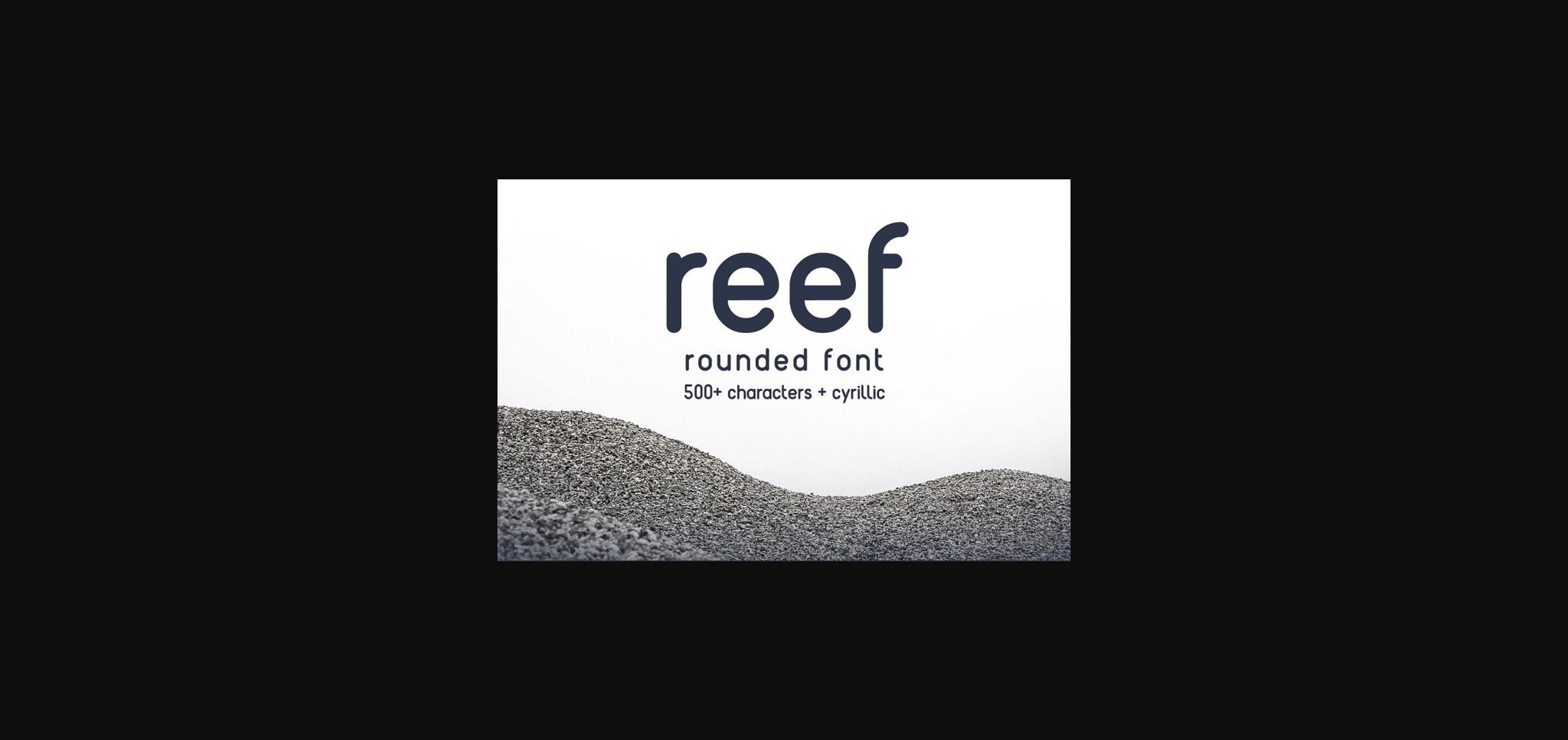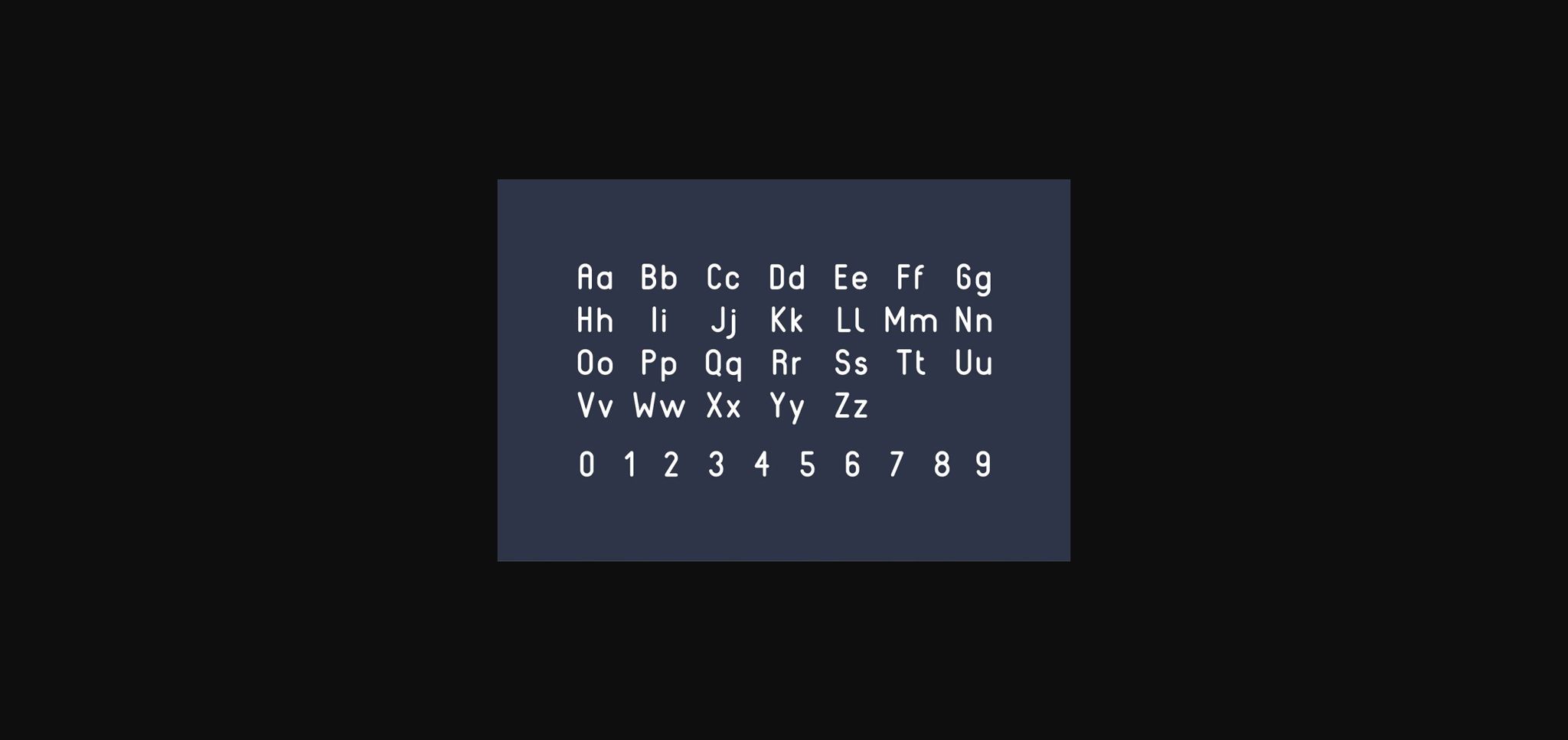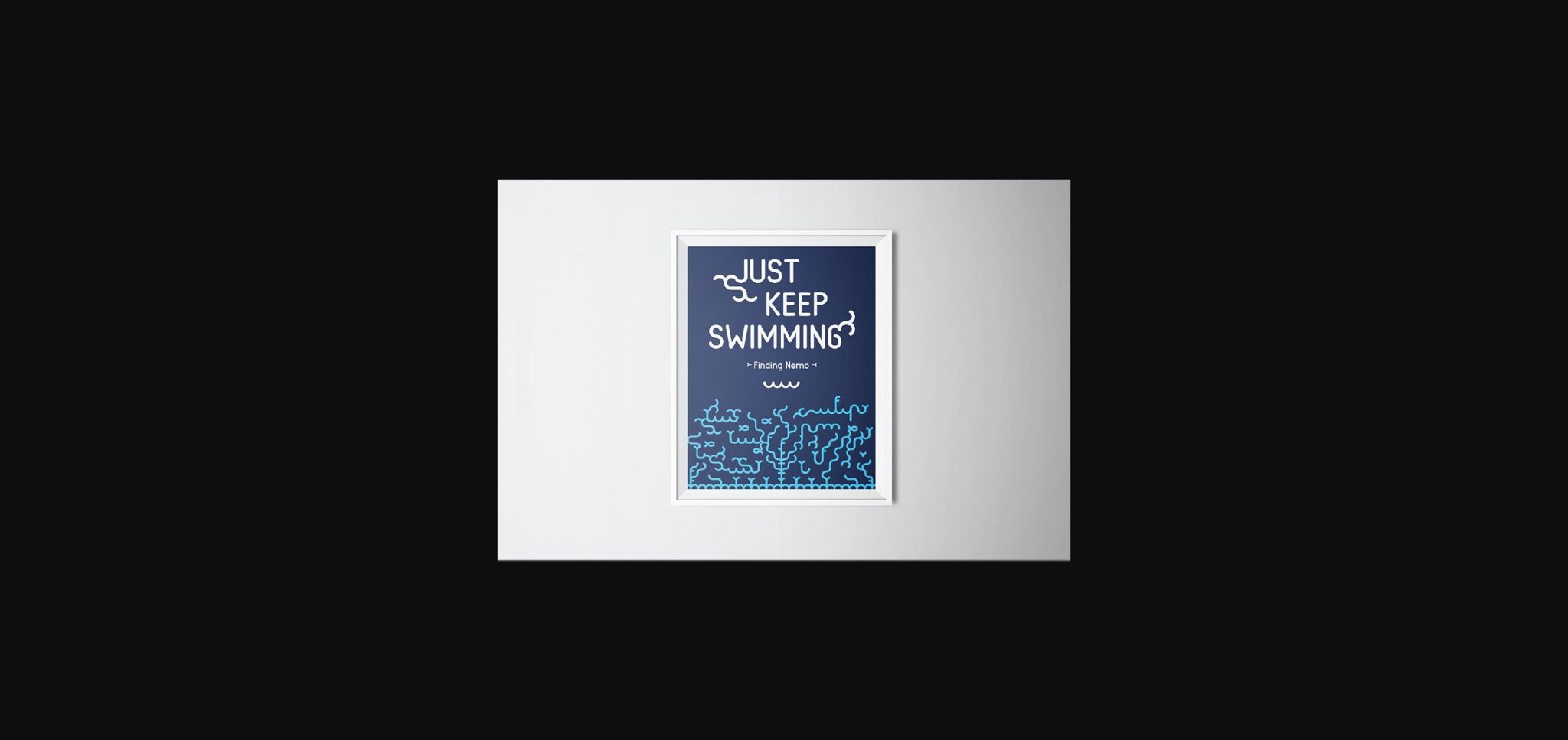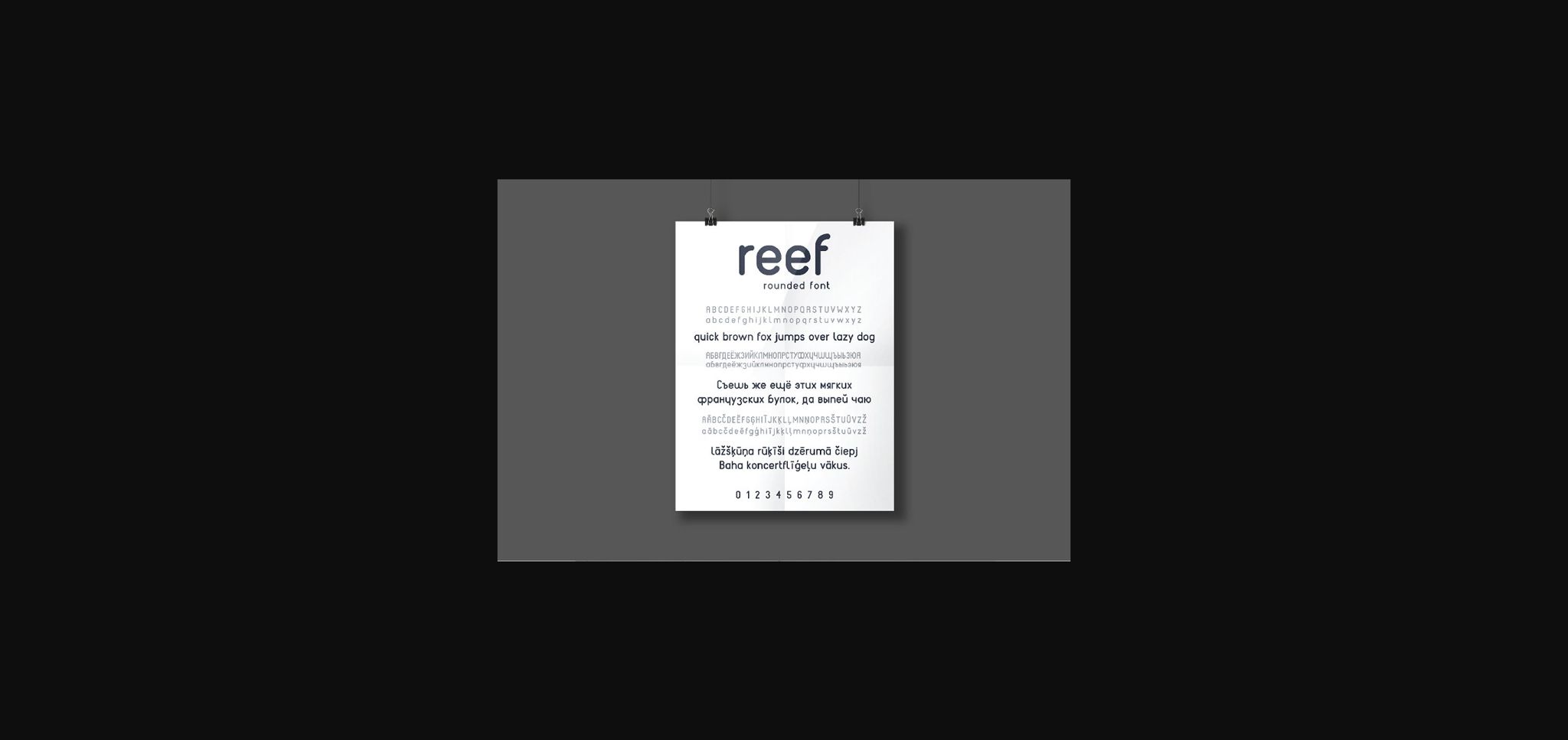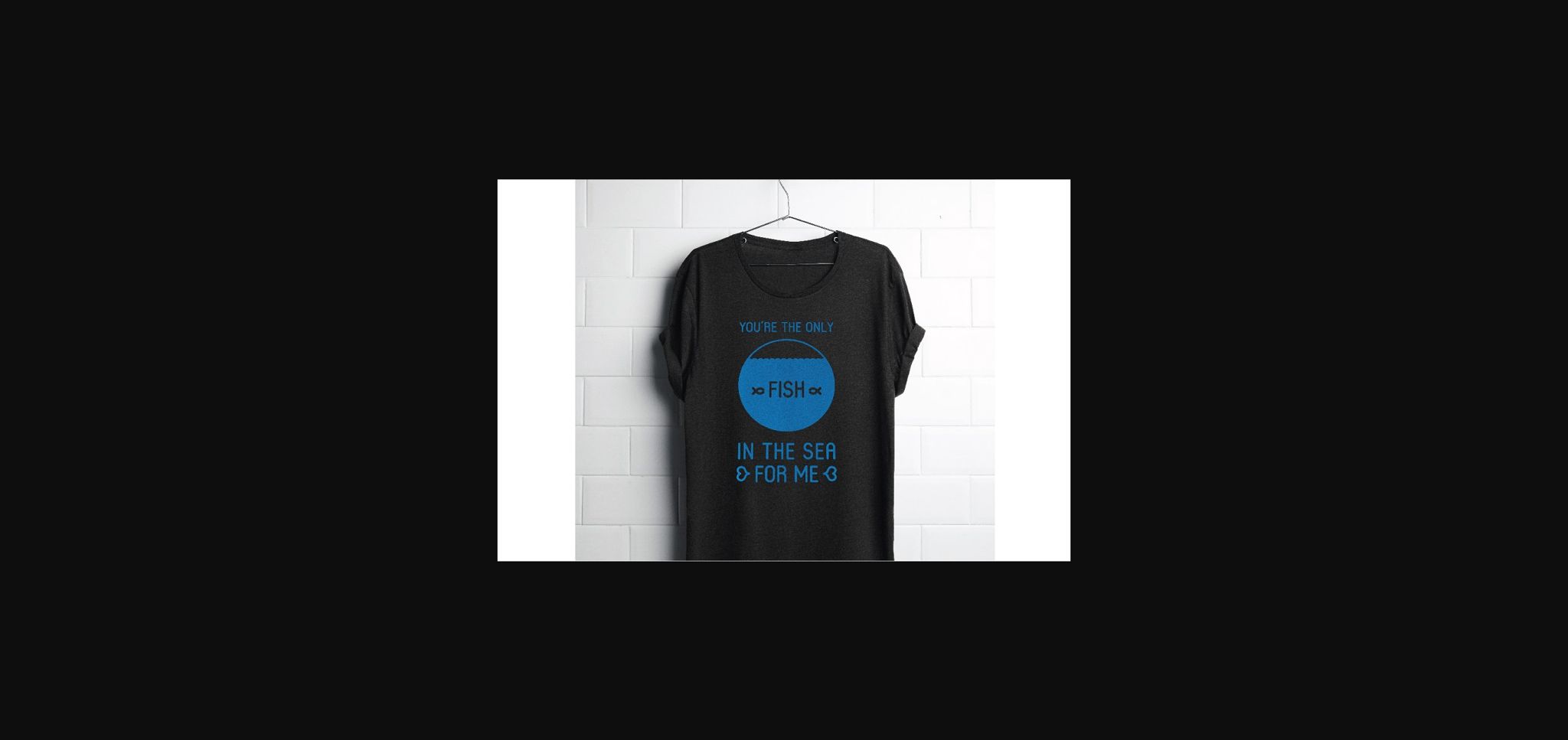
HomeSans Serif FontsReef Font Sans Serif Fonts Reef Font FacebookXPinterestWhatsApp 1 of 7 ... Reef Font Poster 2... Reef Font Poster 3... Reef Font Poster 4... Reef Font Poster 5... Reef Font Poster 6... Reef Font Poster 7... About Reef Font Reef is a rounded sans serif font, carefully handcrafted to become a true favorite. This font will look outstanding in any context, whether it’s being used on busy backgrounds or as a standalone headline! DOWNLOAD NOW People also explored Pixabye Font Quillenghton Font Evina Monogram Font Font Snowfall Font Cherry Bubble Font Creativity Font Masculine Font Respection Font BaseBall Raglan Mockup 410 0 TagsReefReef Font Previous articleEtna FontNext articleBefoil Font LEAVE A REPLY Cancel reply Comment: Please enter your comment! Name:* Please enter your name here Email:* You have entered an incorrect email address! Please enter your email address here Website: Save my name, email, and website in this browser for the next time I comment. Personal Use Free First Be Lucky Personal Use Free Read more about this font Mandara Personal Use Free Read more about this font Ontel Personal Use Free Read more about this font Deling Personal Use Free Read more about this font BLOG How to Install and Use Fonts on Windows, macOS, and Web Projects How to Install and Use Fonts on Windows, macOS, and Web Projects Fonts are a crucial part of design and branding. Whether you’re designing a... Best Fonts for T-Shirt Design – Top 2025 Picks The 10 Best Handwriting Fonts to Add Personality to Your Designs 5 Fonts That Will Dominate Design Trends in 2026